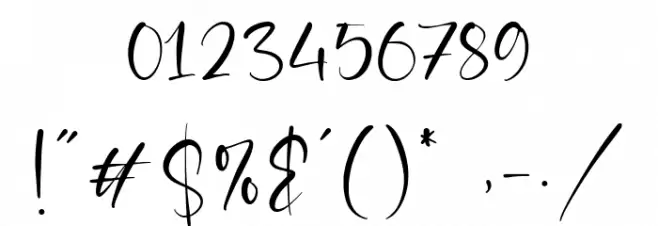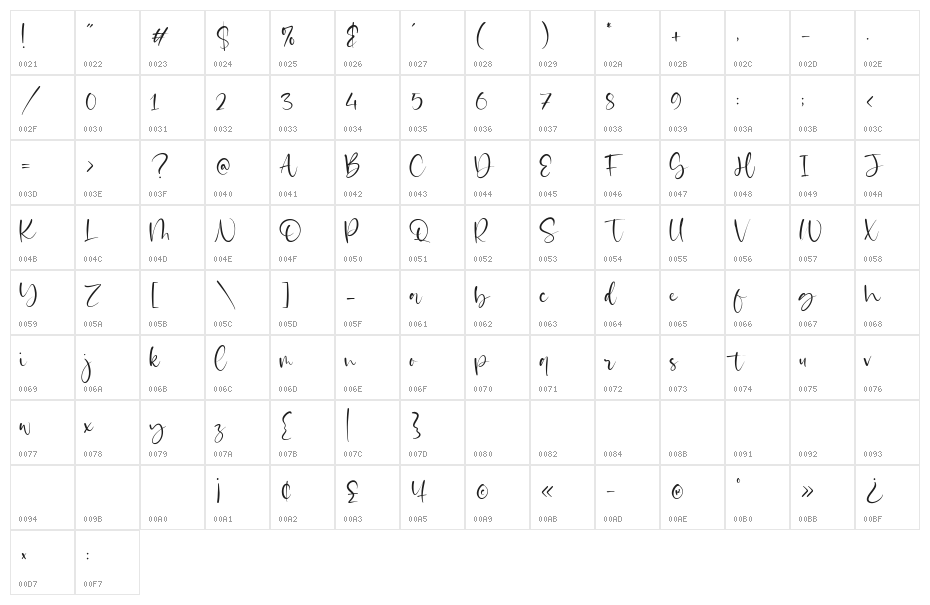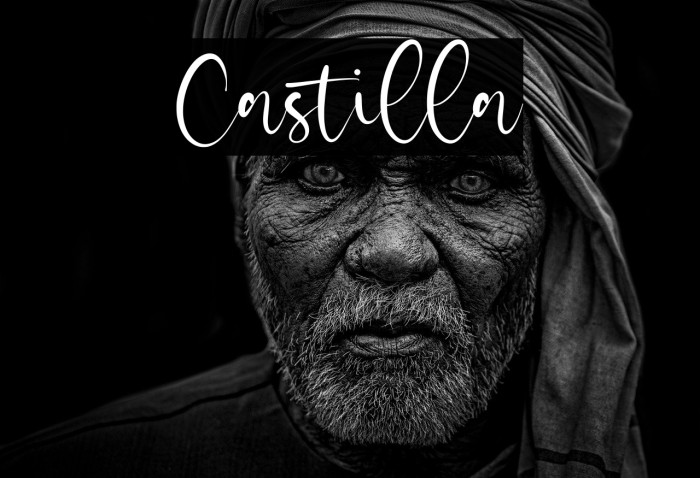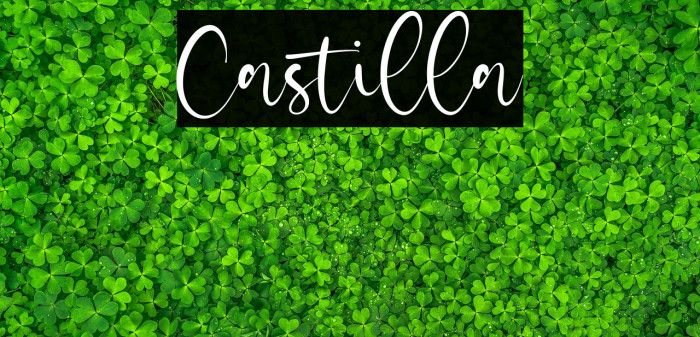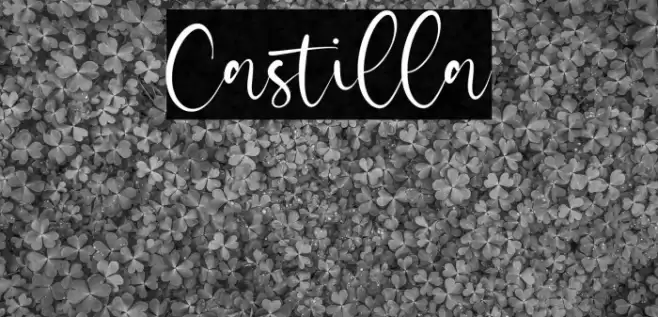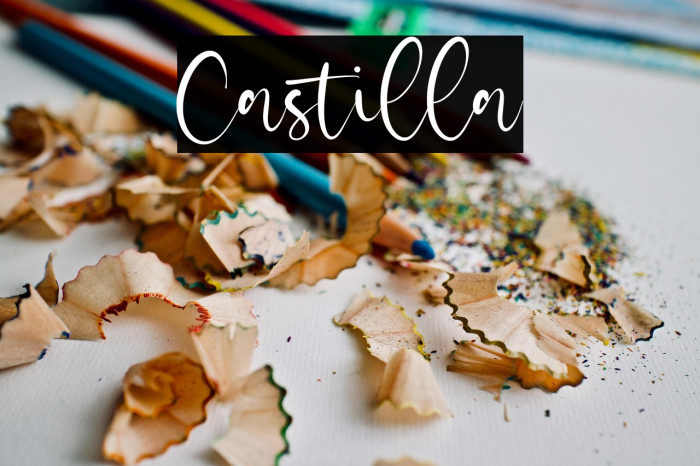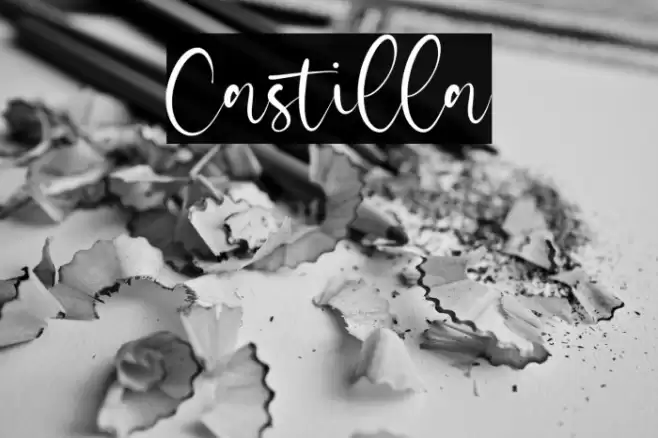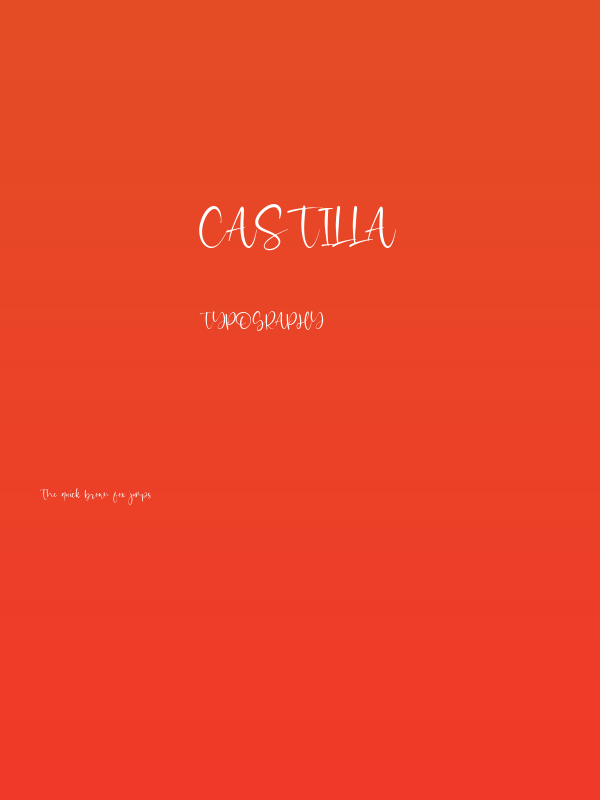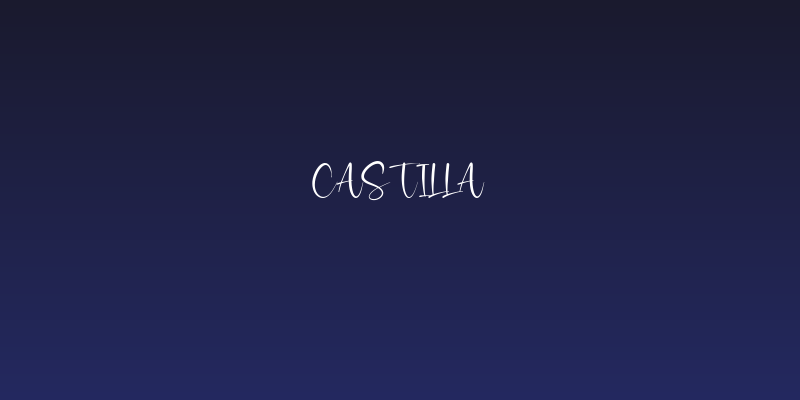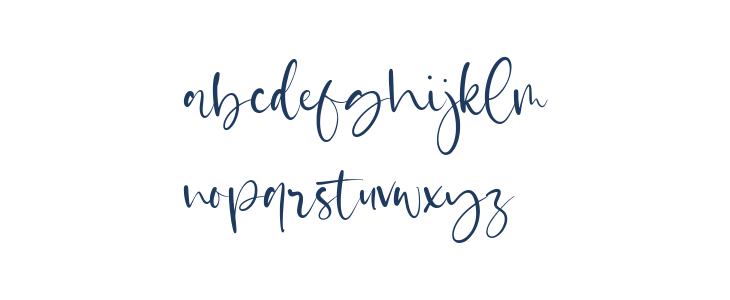
Castilla Font
Castilla Description
This font exudes a lively and expressive character with its flowing, cursive style. The letters are crafted with a sense of movement and elegance, featuring varying stroke widths that add a dynamic quality. The uppercase letters are tall and slightly slanted, while the lowercase letters maintain a consistent fluidity, enhancing the overall aesthetic. The numerals are well-integrated, matching the style of the alphabet with their own unique flair. Special characters are thoughtfully designed, complementing the font's artistic nature. This font is perfect for projects that require a personal touch, such as invitations, greeting cards, or branding materials.